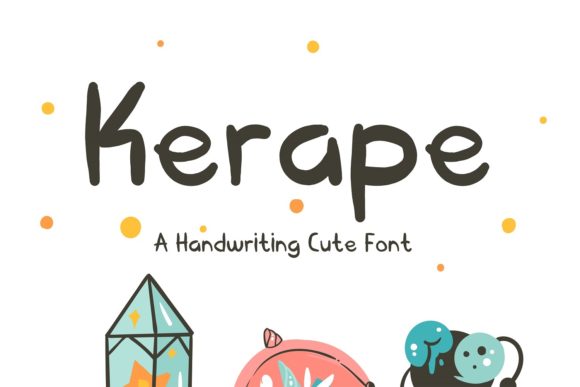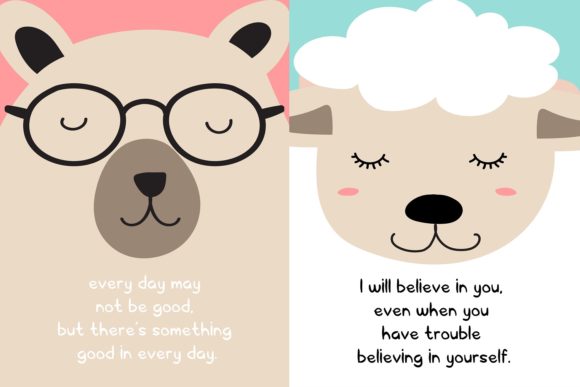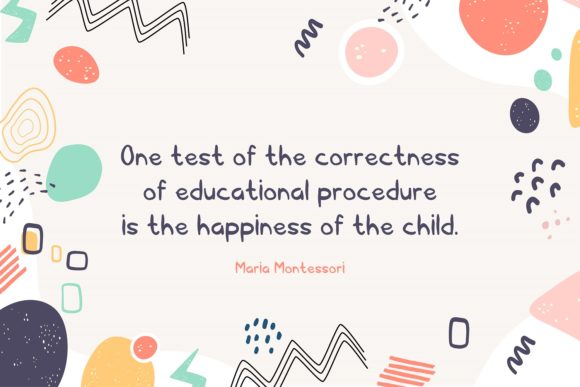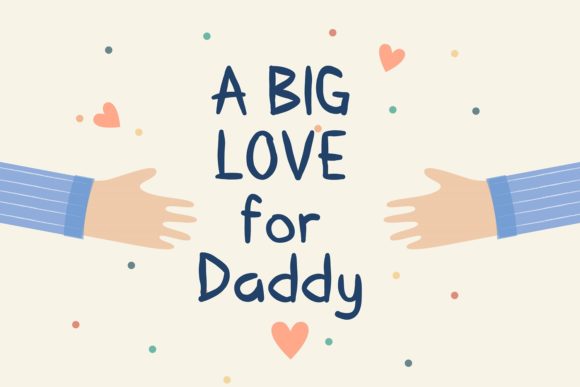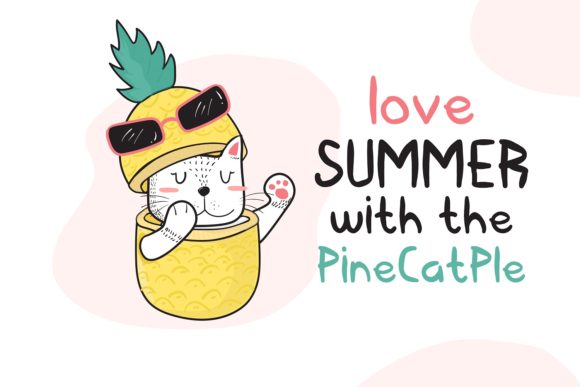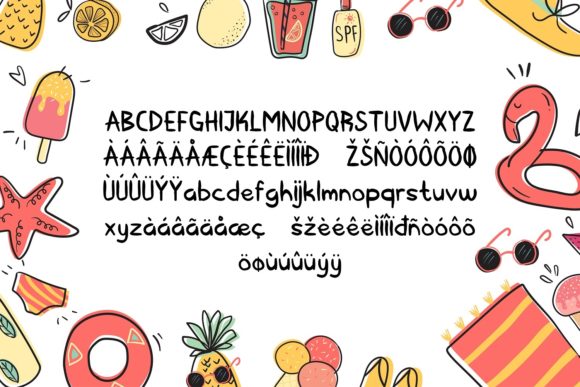
Kerape Font
About Kerape Font
Kerape Handwriting Font (UPDATE!)
Kerape Handwriting Font, cute and funny font. Font name was inspired by a fish in the sea. It’s perfect for logos, name card, magazine layouts, invitations, headers, or even large-scale artwork.